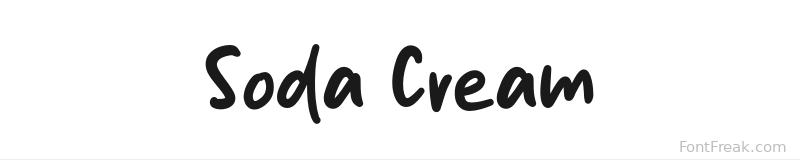
Soda Cream
About Soda Cream
Soda Cream by MJType is a delightful display font that captures the essence of playful creativity. Characterized by its soft, rounded forms and smooth stroke weight, this font exudes a charming, casual vibe. The subtle contrast in its letterforms adds a sense of warmth, making it visually engaging while remaining highly legible. The generous spacing between characters enhances readability, ensuring that it stands out in various applications. With its whimsical flair, Soda Cream features decorative elements that evoke a sense of nostalgia, reminiscent of retro soda shop signage.
This versatile font is perfect for a variety of use cases. It shines in wedding invitations, where its lighthearted style can evoke joy and celebration. Restaurant menus can also benefit from the inviting aesthetic of Soda Cream, making dishes feel more approachable and fun. Additionally, it is well-suited for product packaging, particularly for sweets and soft drinks, where the font can create an enticing atmosphere. Content creators will find it ideal for social media graphics, where eye-catching typography can enhance engagement. Graphic designers may appreciate its ability to bring a sense of personality to advertisements and promotional materials.
Targeted towards graphic designers, small business owners, and content creators, Soda Cream invites users to explore its playful nature while maintaining professionalism. The font resonates with those looking to add a touch of whimsy to their projects without sacrificing clarity.